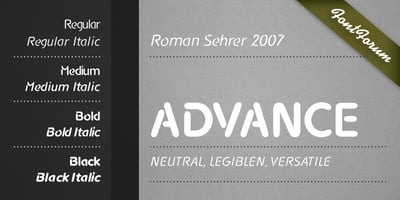
Advance Font Family was designed by Roman Sehrer and published by URW Type Foundry. Advance contains 8 styles and family package options. At the beginning of his work on Advance, Roman Sehrer intended to design a typeface not following any trends or particular criteria. Instead, the new typeface should be optically neutral, very legible, and versatile in character.